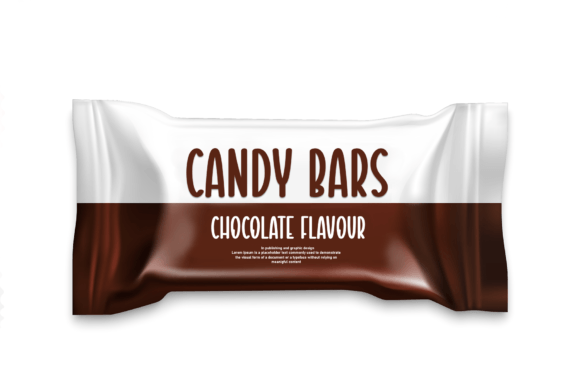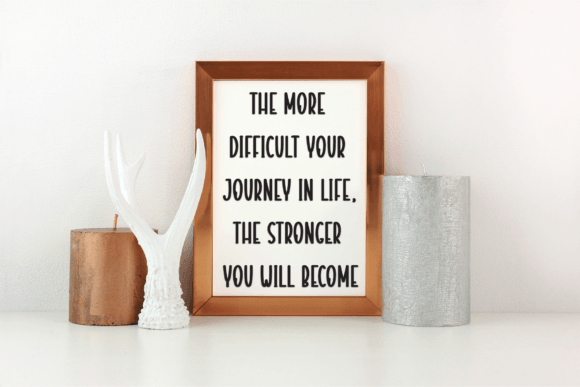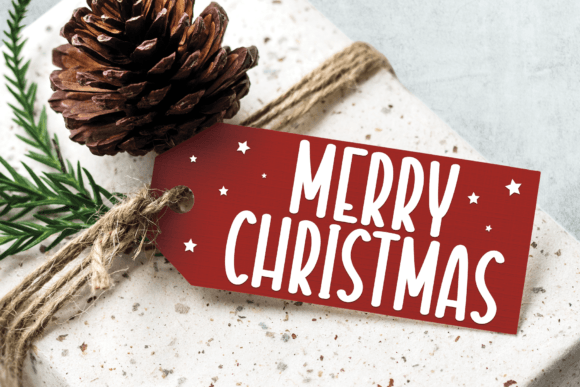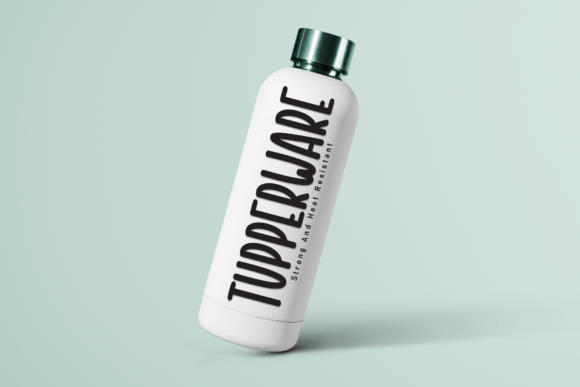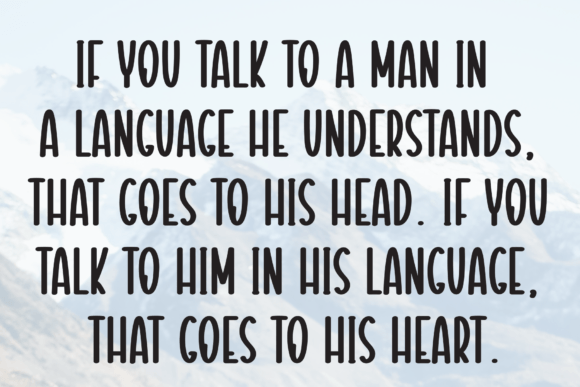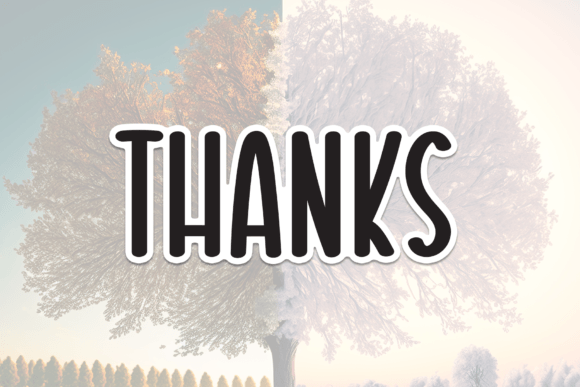
When Inspiration Strikes: Unlocking the Magic of Change Seasons Font
Have you ever been browsing through a design inspiration board, and suddenly a font catches your eye? Maybe it’s the whimsical feel of a handwritten script, or the effortless charm of a casual display font. Whatever it is, that moment of creative spark can be the catalyst for something truly special. For designers, finding the perfect font can be the difference between a good design and a great one.
Enter Change Seasons Font, a sweet and friendly handwritten font that’s sure to capture your heart. With its natural and unique style, this font is the perfect companion for any design project. Whether you’re working on a wedding invitation, a blog post, or a social media campaign, Change Seasons Font is the perfect choice. Its versatility and charm make it a valuable addition to any designer’s toolkit.
Change Seasons Font Key Features
- Unique Characteristics: The Change Seasons Font features a unique blend of traditional and modern elements, with intricate details and subtle nuances that evoke a sense of change and transformation.
Change Seasons Font Review
As a designer, I was excited to dive into the Change Seasons Font and see what it had to offer. Overall, I found it to be a solid choice for those looking for a versatile, elegant font.
- Neutral aesthetic: Change Seasons Font has a clean and simple design that makes it easy to pair with a variety of other fonts and design elements.
- Legibility: The font is highly legible, even at smaller font sizes, making it a great choice for body text and other applications where readability is key.
- Multi-platform support: Change Seasons Font is available for both desktop and web use, making it a convenient choice for designers working on a range of projects.
- Lack of expressiveness: While the font is elegant, it can feel a bit sterile and lacking in personality, particularly for more creative or artistic applications.
- Not ideal for bold statements: Change Seasons Font is better suited for subtle, understated designs rather than bold or attention-grabbing statements.
Overall, I think Change Seasons Font is a solid choice for designers who value simplicity and elegance. While it may not be the best fit for every project, it’s a versatile and reliable option that’s worth considering.
Tips for Getting the Most Out of Change Seasons Font
Some tips for getting the most out of Change Seasons Font include:
- Experiment with different font sizes and styles to create a visually appealing design.
- Combine Change Seasons Font with other fonts for a unique and creative look.
- Use the font in a variety of contexts, including headings, body text, and titles.
Change Seasons Font is commonly used in a variety of contexts, including:
- Designing greeting cards and invitations.
- Creating social media graphics and posts.
Alternatives to Change Seasons Font
Great Vibes is a modern, elegant font that features a unique blend of classic and contemporary elements. It’s perfect for designers who want to create a sophisticated and high-end look. Great Vibes is ideal for use in branding, packaging, and advertising materials.
Compared to Change Seasons Font, Great Vibes has a more refined and polished feel, making it a great choice for designers who want to create a premium look. However, Great Vibes may be too formal for some designs, whereas Change Seasons Font is more versatile.